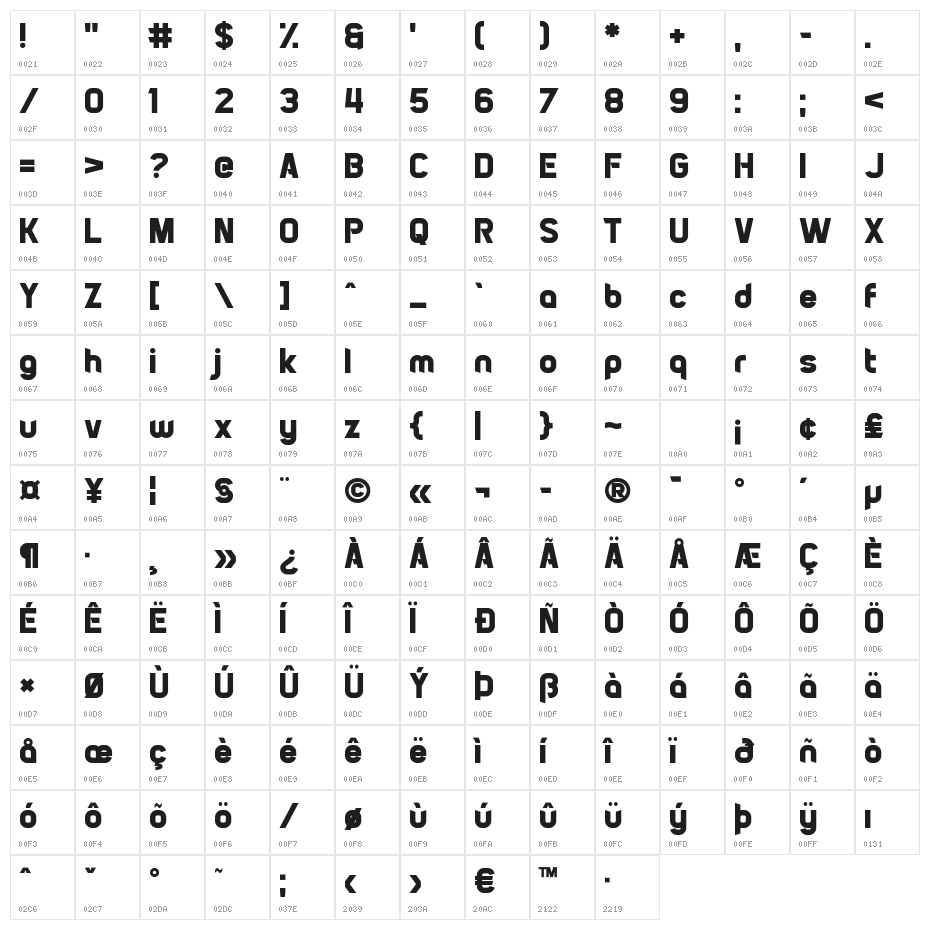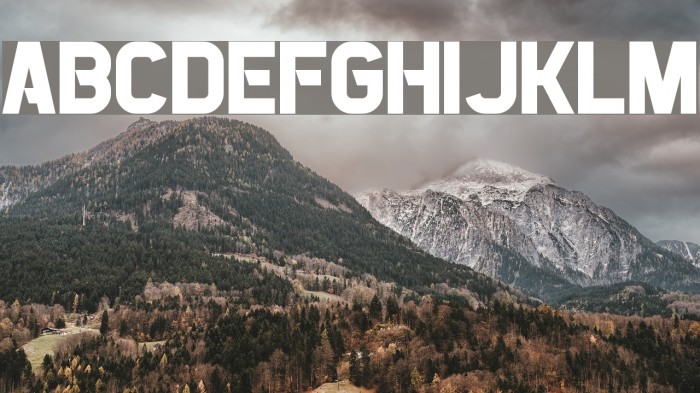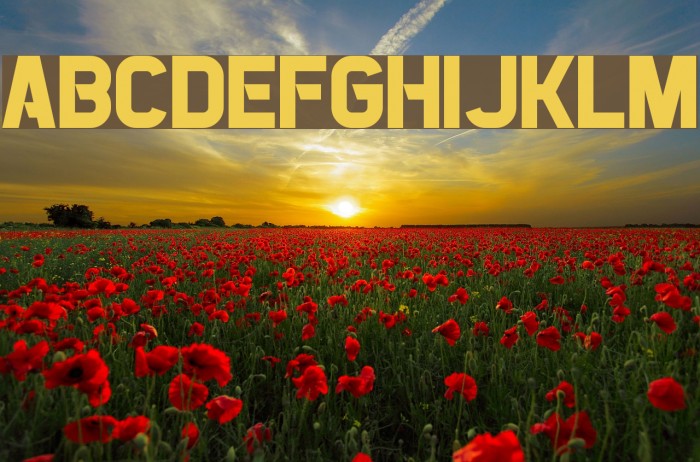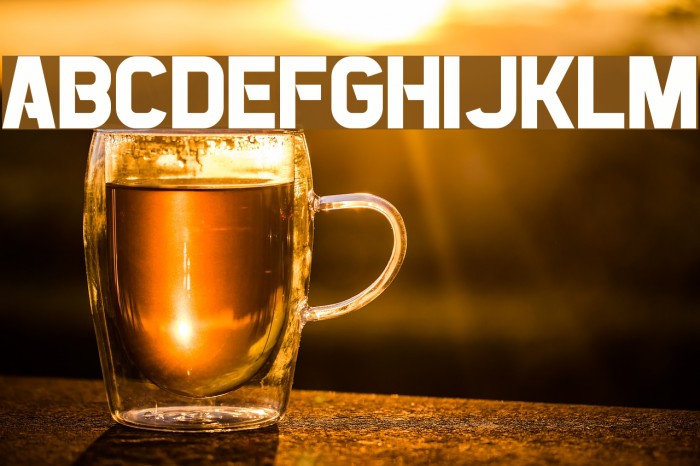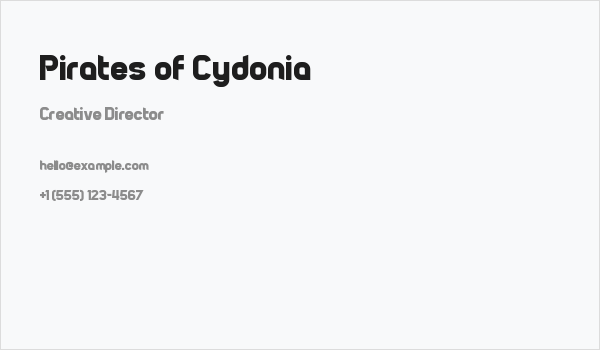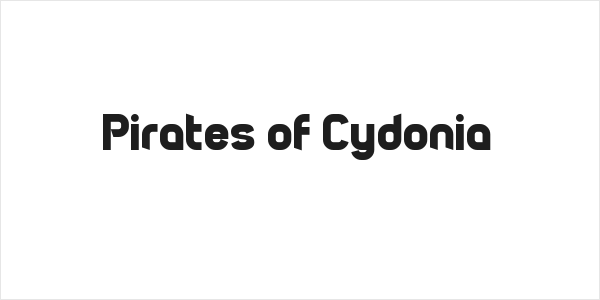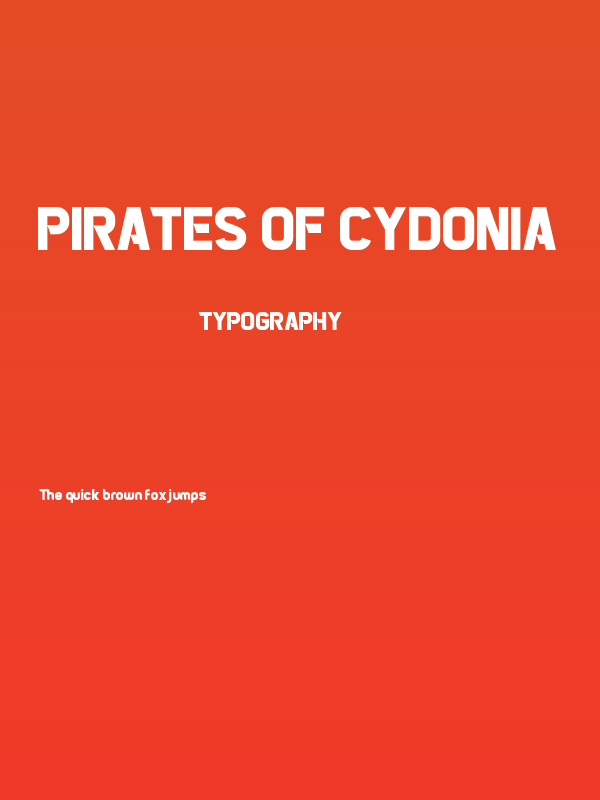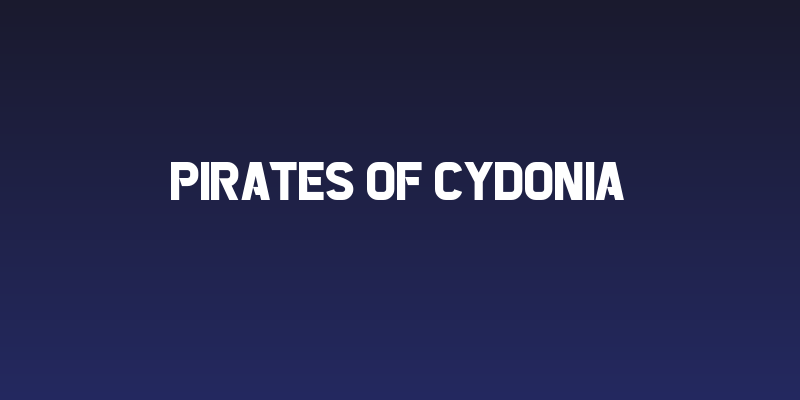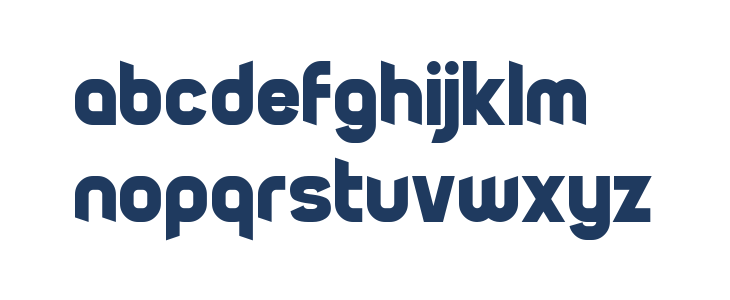
Pirates of Cydonia Font
Pirates of Cydonia Description
This bold and striking font features a modern, geometric design with strong, angular lines and a robust presence. The uppercase letters are particularly commanding, with a uniform height and width that create a sense of stability and strength. The lowercase letters maintain this boldness, with rounded edges that soften the overall look slightly. Numbers and special characters are designed to match the font's bold and geometric style, ensuring consistency across all text. The font's clean lines and lack of serifs give it a contemporary feel, making it suitable for a variety of modern applications.
| Proposed Projects | Ideal for branding, headlines, posters, and any project requiring a strong, modern typeface. |